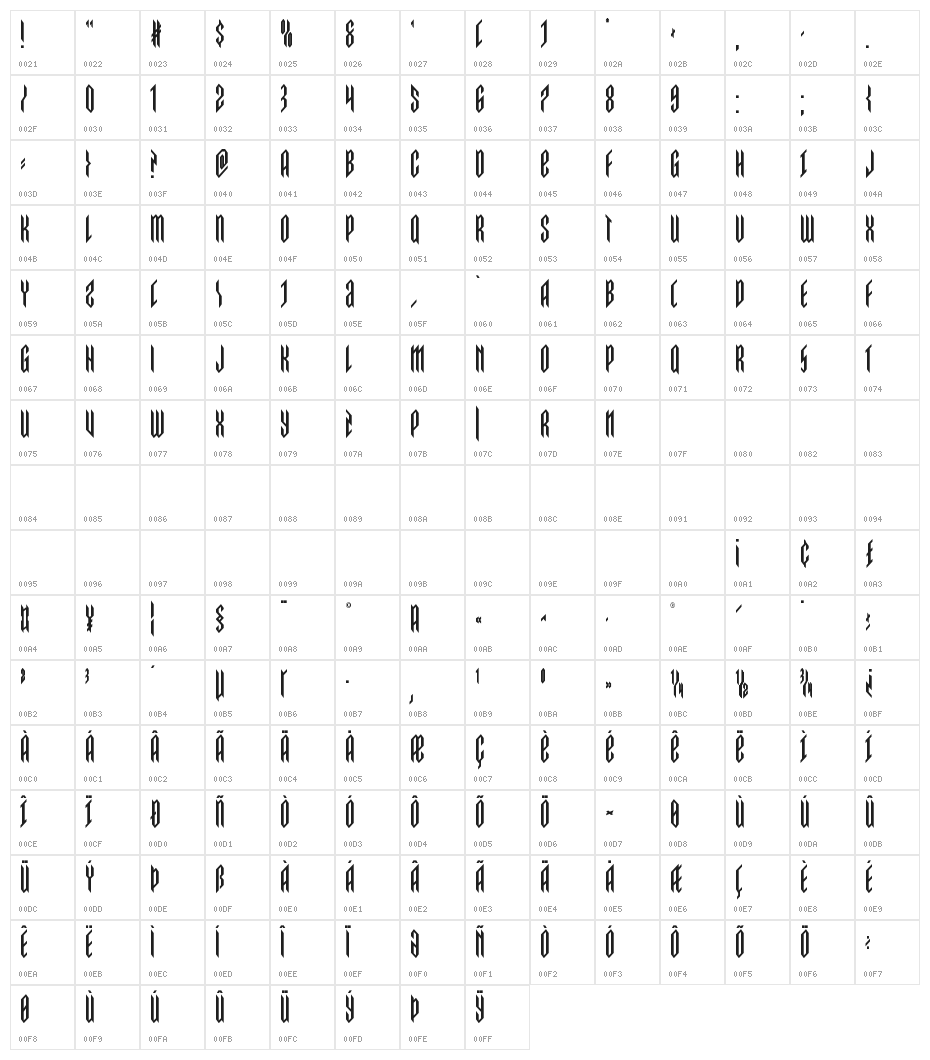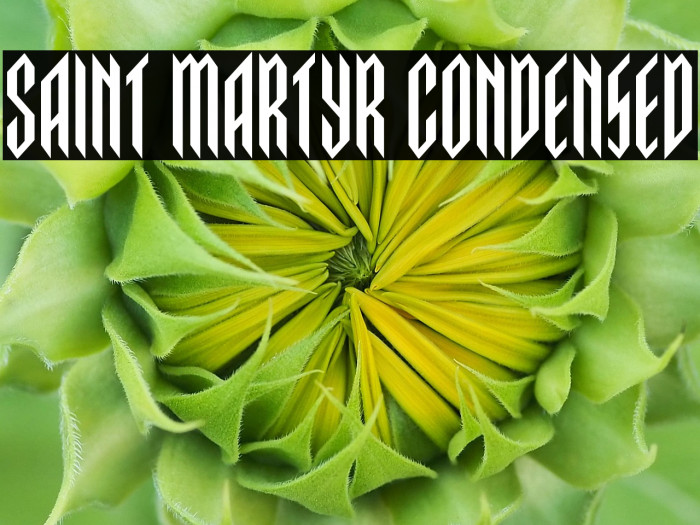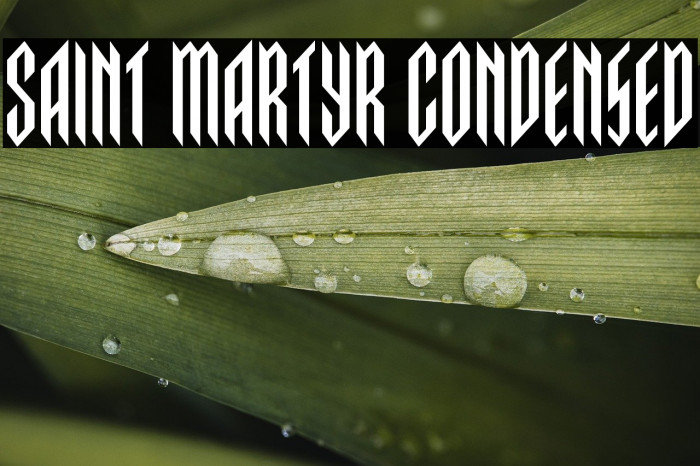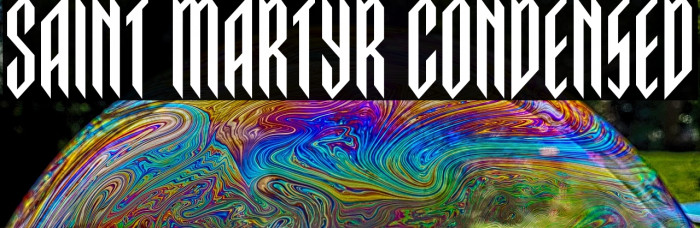
Saint Martyr Condensed Font
Saint Martyr Condensed Description
This font features a bold, angular design with a distinct gothic influence. The characters are sharply defined with pointed edges and a condensed structure, creating a striking and dramatic appearance. The uppercase letters are particularly elongated, enhancing the vertical emphasis of the typeface. The numerals and special characters maintain the same stylistic elements, ensuring consistency across all glyphs. The overall aesthetic is reminiscent of medieval script, yet it retains a modern edge due to its clean lines and geometric precision.
| Overall Style | Modern Gothic |
| Proposed Projects | Ideal for use in branding, posters, album covers, and any project requiring a bold, dramatic typeface. |